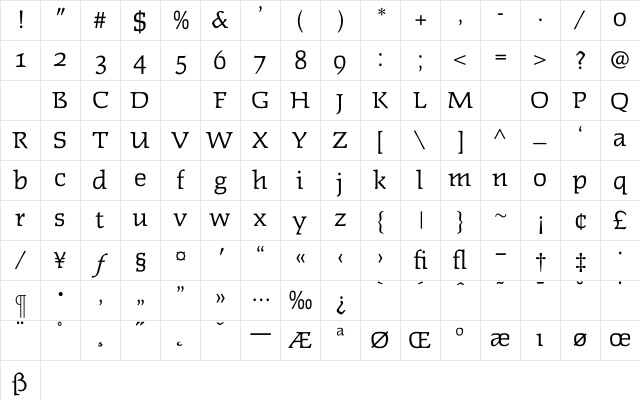
FaustLightOldStyleFigs Regular
Design Context for FaustLightOldStyleFigs
FaustLightOldStyleFigs carries the refined structure of traditional serif typography, with bracketed terminals and considered proportions that communicate credibility and craft. Its slender proportions lend an understated elegance to any composition.
A reliable choice for luxury brands, academic publishing, editorial headers, and credibility-focused identities.
Font Pairing: Pairs naturally with a modern sans-serif for UI elements and captions, creating a classic editorial contrast.
Pro Tip: Use FaustLightOldStyleFigs with generous line-spacing for the most refined reading experience - its light weight benefits from room between lines.